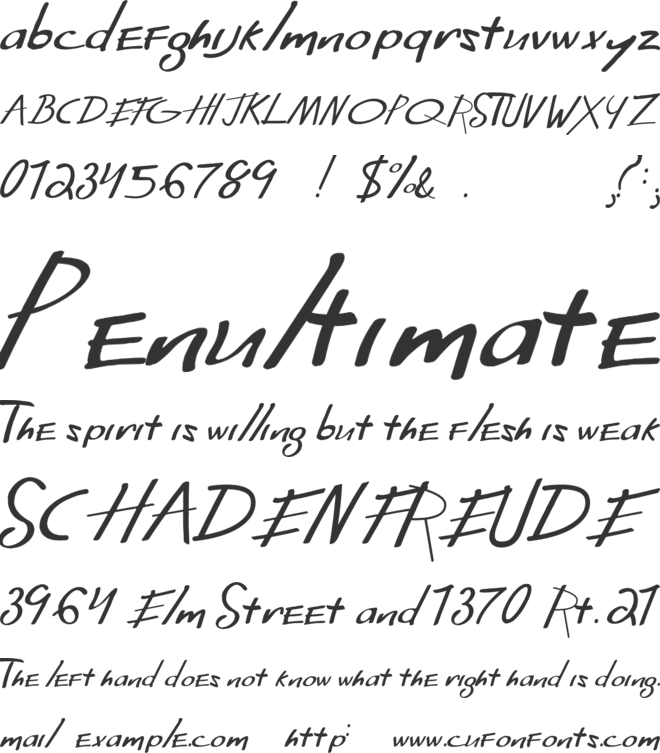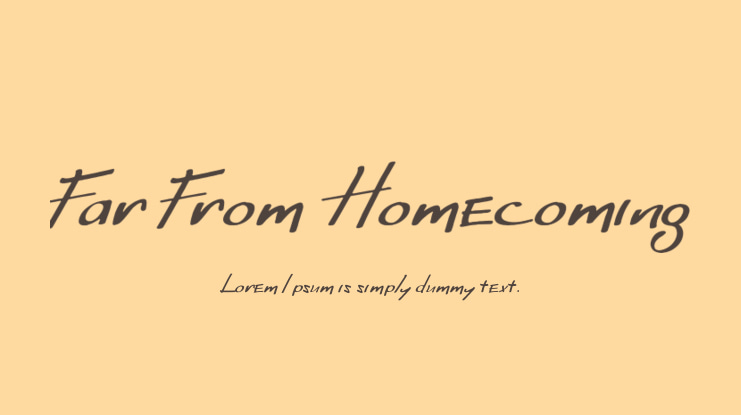
Far From Homecoming Font
This typeface is based on the font used in the subtitles and marketing for the MCU Spider Man movies, Homecoming and Far From Home. While most of the letters have been recreated, others were made from scratch to try and match up.